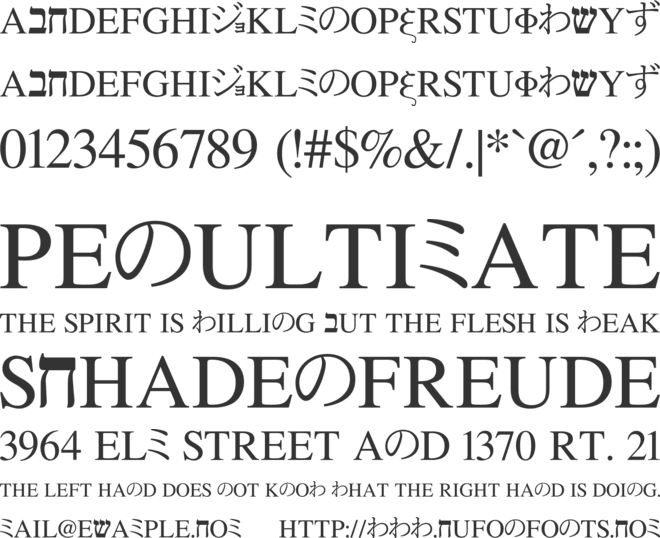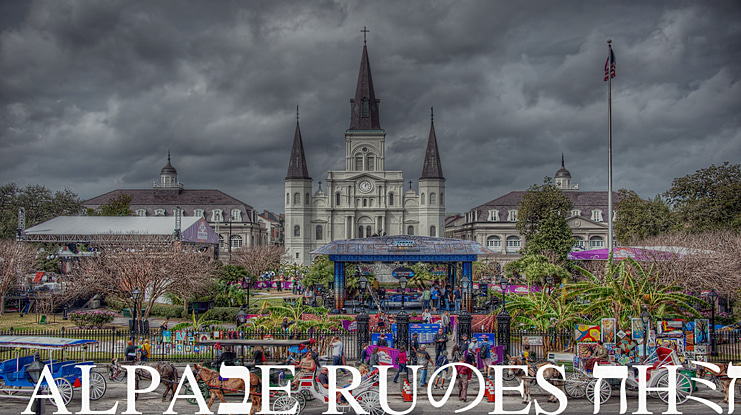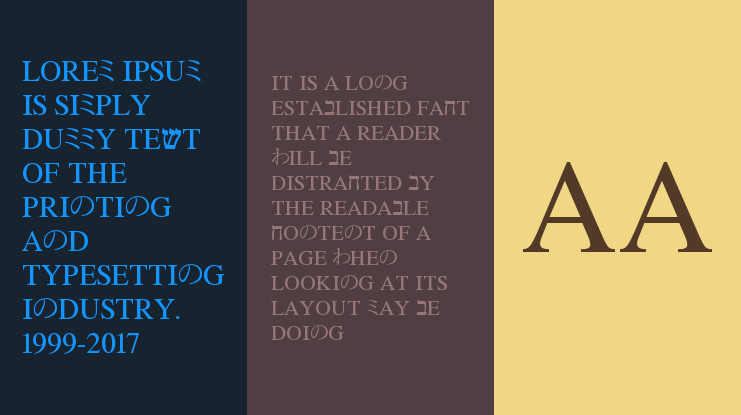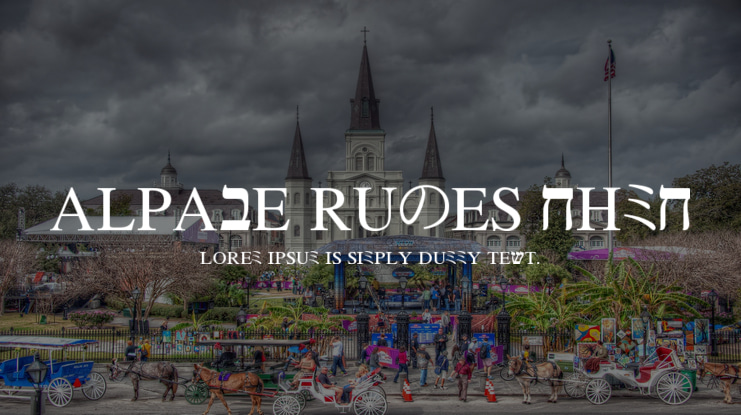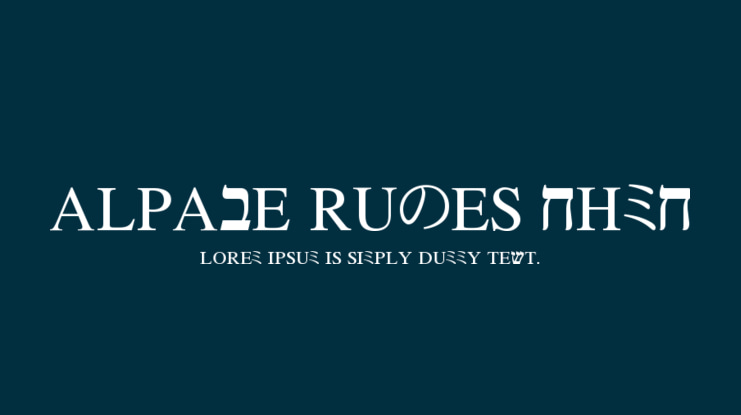
Alpabe Runes is a newest legacy international font from Heaven Castro. It is based on Tex Gyre Termes with the other glyphs taken from IPA Mincho and Frank Ruhl Libre. It was first seen in the Unicorn Jelly comic strips #126 and #127 where Chou and Lupiko found out the cards in the chest. She is said that the runes are seperated in four groups; each set has a different writing system, there are 18 Latin alphabets retained from the original, about 3 of them replaced with Hebrew letters, 5 replaced with the Japanese kana characters and the two others replaced with Greek letters. That's how I've made this font to get intrigued by puzzles, and the reason I made an idea about that. Unicorn Jelly fans should be using this.